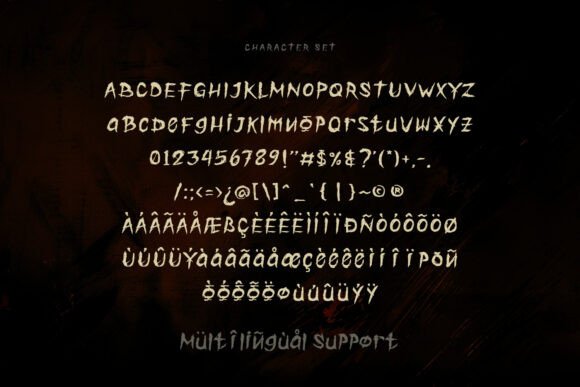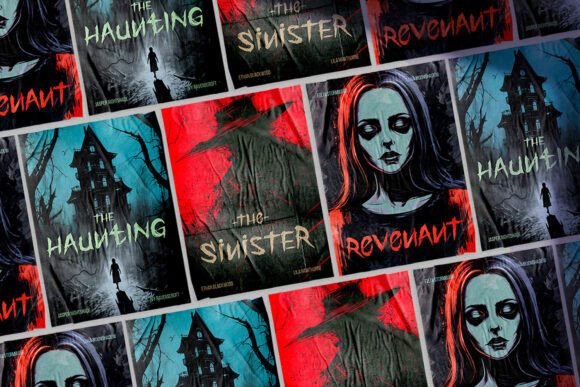
Introduction to Ghoulster Font
Do you remember that moment when you’re working on a design project, and you need the perfect font to give it that eerie, spine-tingling feel? You scroll through your design resources, and nothing seems to fit the bill. That’s when you stumble upon it – the Ghoulster Font. Its mysterious elegance will transport your creative project to a realm of darkness and intrigue.
As a designer, you know how valuable the right font can be. It can make or break the aesthetic of your work. And when it comes to horror-themed projects, the Ghoulster Font is an absolute must-have. Its high-quality design and transparent background make it perfect for any graphic design project, from logos to posters.
Whether you’re working on a free download project or a paid commission, the Ghoulster Font is sure to elevate your design to the next level. Its versatility and spooky charm make it a valuable addition to any designer’s toolkit.
Key Features of Ghoulster Font
- Unique, spooky design featuring a transparent background for flexibility
- Designed for use in digital and print media, including posters, flyers, and more
- Perfect for adding a touch of horror or Halloween-themed flair to your design
Honest Review: Ghoulster Font
I recently stumbled upon the Ghoulster Font while searching for a design resource to elevate my creative project. This font immediately caught my attention due to its unique and spooky aesthetic. As a designer, I was excited to see how it would work in my design.
- ✨ The font’s high-quality design makes it perfect for creating a creepy and eerie atmosphere in my project.
- ✨ The transparent background allows for easy layering and editing, making it a great addition to my design workflow.
- ⚠️ The font’s limited character set made it difficult to use for longer pieces of text.
- ⚠️ The font’s bold design can be overwhelming if used too much, so it’s essential to use it sparingly.
Overall, I was impressed with the Ghoulster Font’s potential and versatility. While it may have some limitations, its unique design and high-quality construction make it a valuable addition to any designer’s toolkit. I would recommend it to anyone looking for a creative and spooky font for their next project.
How to Use Ghoulster Font
The Ghoulster Font is a high-quality, free design resource ideal for creative projects. With its unique and spooky design, this font is perfect for Halloween-themed projects, horror movies, or any other project that requires a touch of darkness.
The Ghoulster Font is perfect for a variety of creative projects, including:
- Halloween-themed posters and invitations
- Horror movie titles and credits
- Spooky-themed social media graphics
- Dark-themed blog posts and articles
Tips for Getting the Most Out of Ghoulster Font
To get the most out of the Ghoulster Font, try experimenting with different font sizes, colors, and combinations. This font is also perfect for creating a sense of drama and tension in your design.